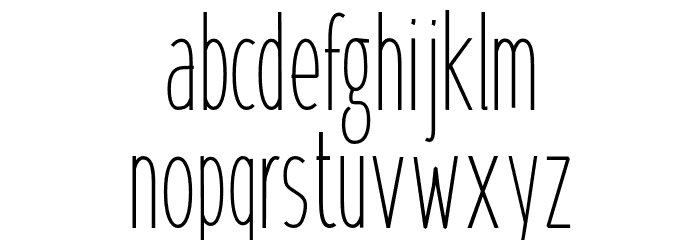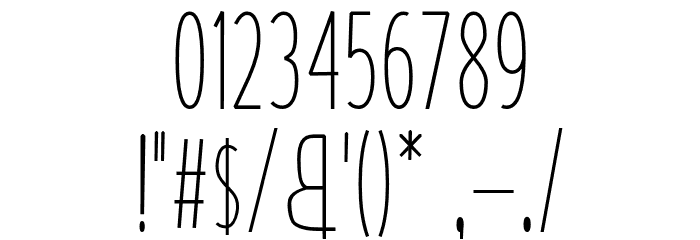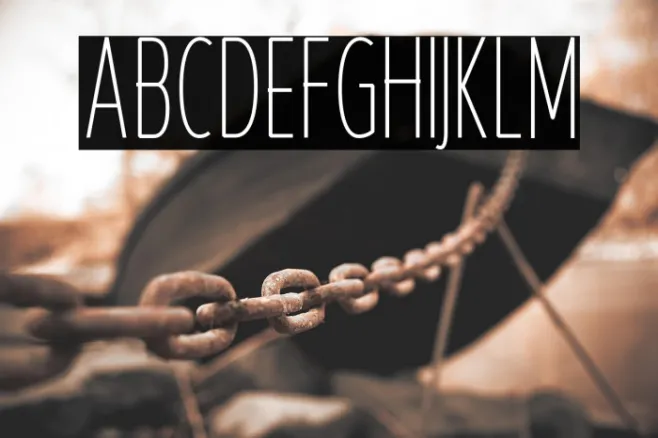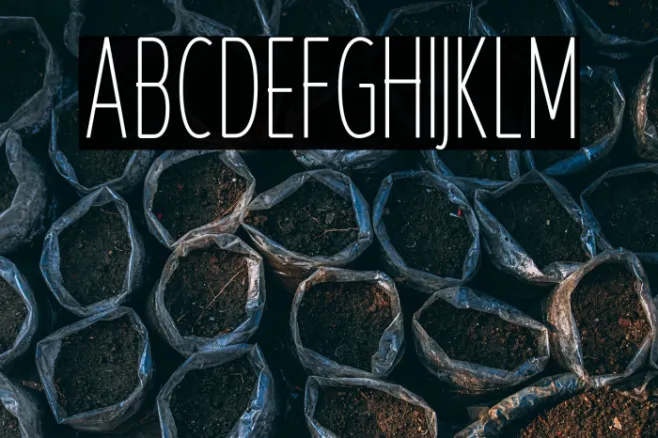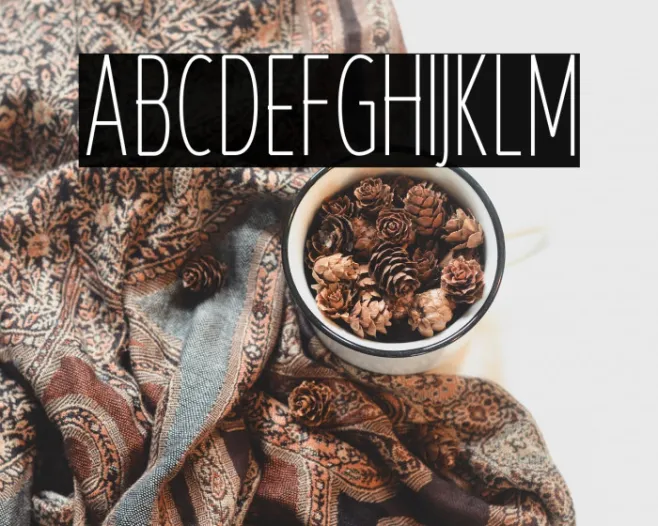
KrempengSans Font
This font features a tall, narrow design with clean, straight lines and a modern aesthetic. The uppercase letters are uniform in height, while the lowercase letters maintain a consistent style that complements the uppercase. The numerals are clear and legible, matching the overall sleek appearance. Special characters are well-integrated, maintaining the font's cohesive look. The thin strokes and minimal contrast give it a refined and elegant feel, making it suitable for contemporary design projects.
A tall, narrow, and modern font with clean lines and minimal contrast.
- Font: KrempengSans
- Proposed Projects: Ideal for modern branding, minimalist posters, sleek website headers, and contemporary editorial design.